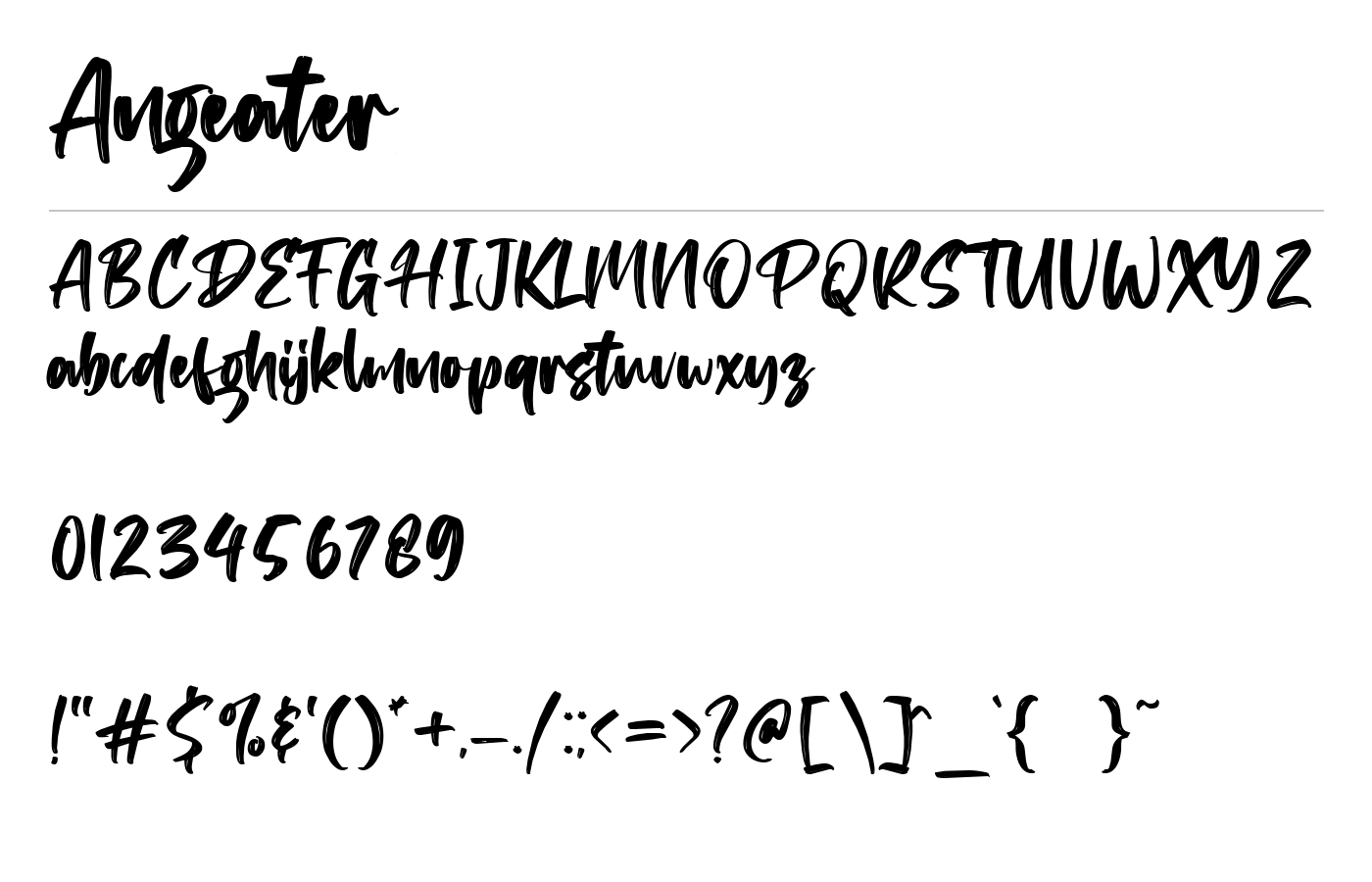
Angeater is a lively brush script font that features bold, textured strokes with a casual, hand-painted feel. Its dynamic and slightly irregular letterforms give it an energetic and personal touch, making it ideal for creative projects, branding, and headlines that seek a warm, informal vibe. This font works well where a handcrafted, artistic look is desired to convey friendliness and originality.
Angeater Font
About Angeater Font
| Font family | Angeater Font |
| Designer | vztype || Randi Ilhamsyah |